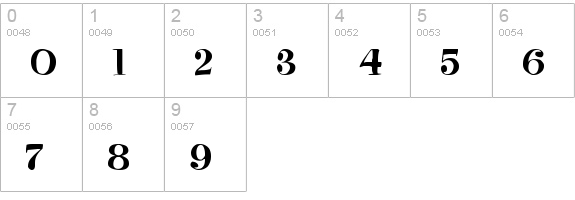
RSPixie-Normal Font Details
RSPixie-Normal is the standard, neutral variant in the RSPixie typeface family \xE2\x80\x94 well suited to general body text, paragraphs, and standard typographic work.
RSPixie-Normal is a charming and whimsical font that brings a touch of magic to any design project. With its delicate curves and playful appearance, this font is perfect for adding a hint of fantasy to your creations. Whether you're working on a children's book, party invitation, or website design, RSPixie-Normal is sure to captivate your audience. Best of all, RSPixie-Normal is available for free download at FontsMarket.com. With just a few clicks, you can add this enchanting font to your collection and start using it in your projects right away. Don't miss out on the opportunity to enhance your designs with the delightful RSPixie-Normal font – download it today and let your creativity soar!